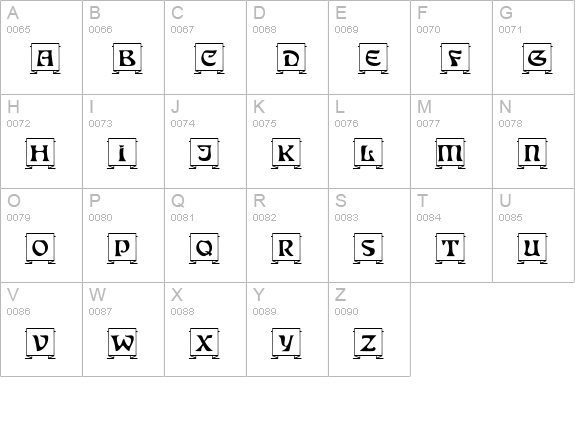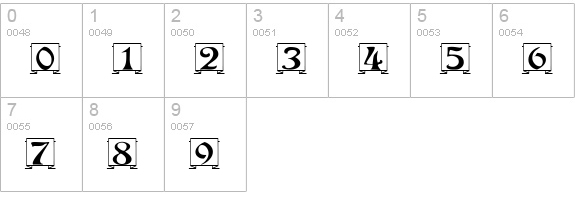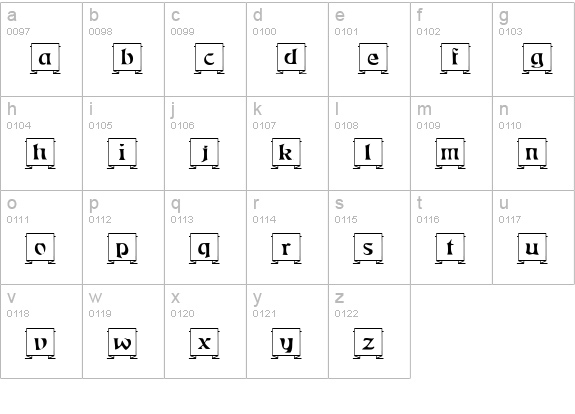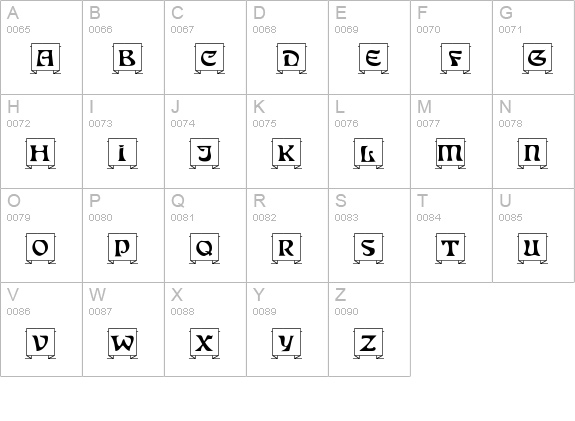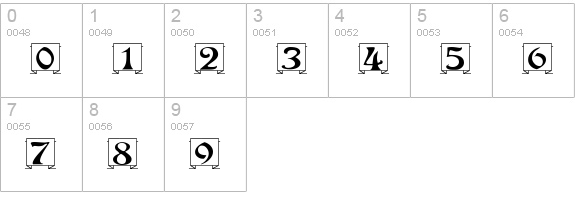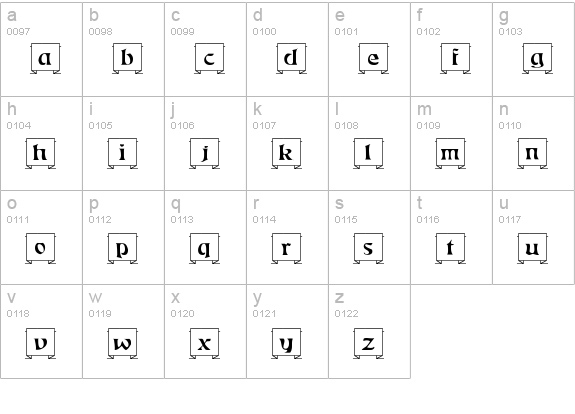
Fanfold Font Details
Fanfold font is a modern and stylish typeface that captures attention with its unique design and sleek lines. This versatile font is perfect for a wide range of projects, from branding to digital designs. With its clean and professional look, Fanfold font adds a touch of sophistication to any project. The best part is that Fanfold font is completely free to download at FontsMarket.com. Whether you're a designer looking to enhance your creations or simply looking for a fresh new font to use, Fanfold font is the perfect choice. Download it today and add a touch of elegance to your designs!